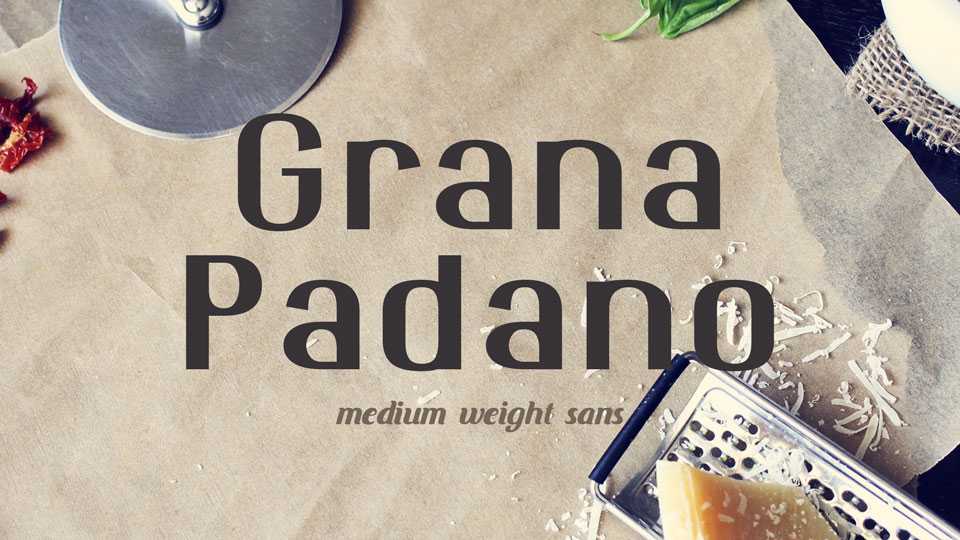
Download Grana Padano font, a medium-weight upright sans-serif font in roughly the same family as historic Chicago font. Great for text blocks and short messages, banners, posters, branding, cards, menus, titles and more.
Designer: Daniel Johnson